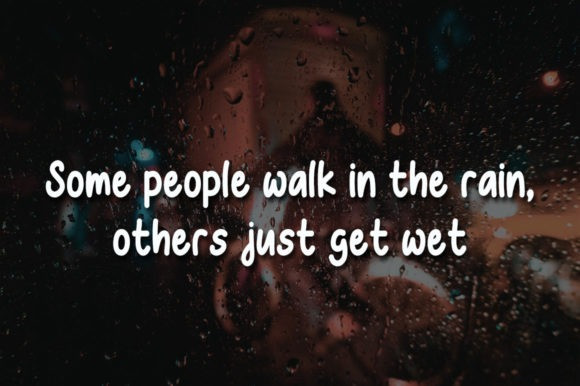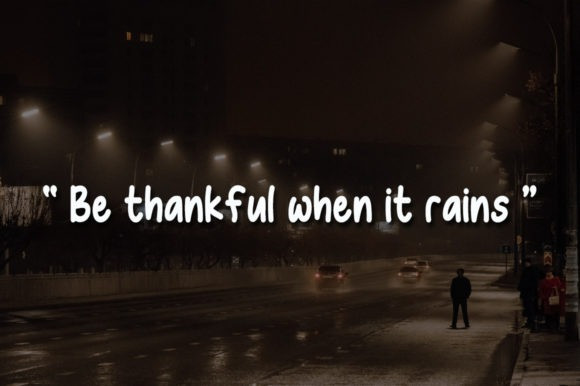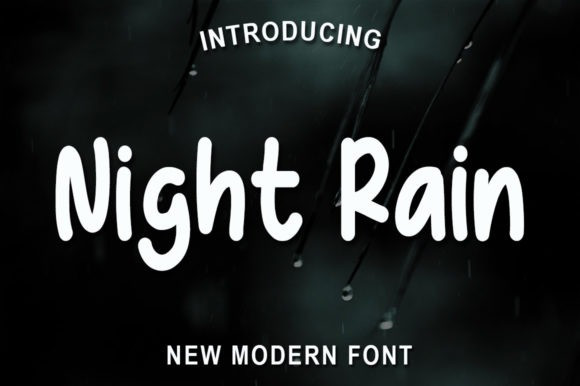
Night Rain Font
Night Rain Font is a neat and friendly handwritten font. It has an adaptable style and simple characters, which means that you can easily fit it to a wide range of casual or informal creations.